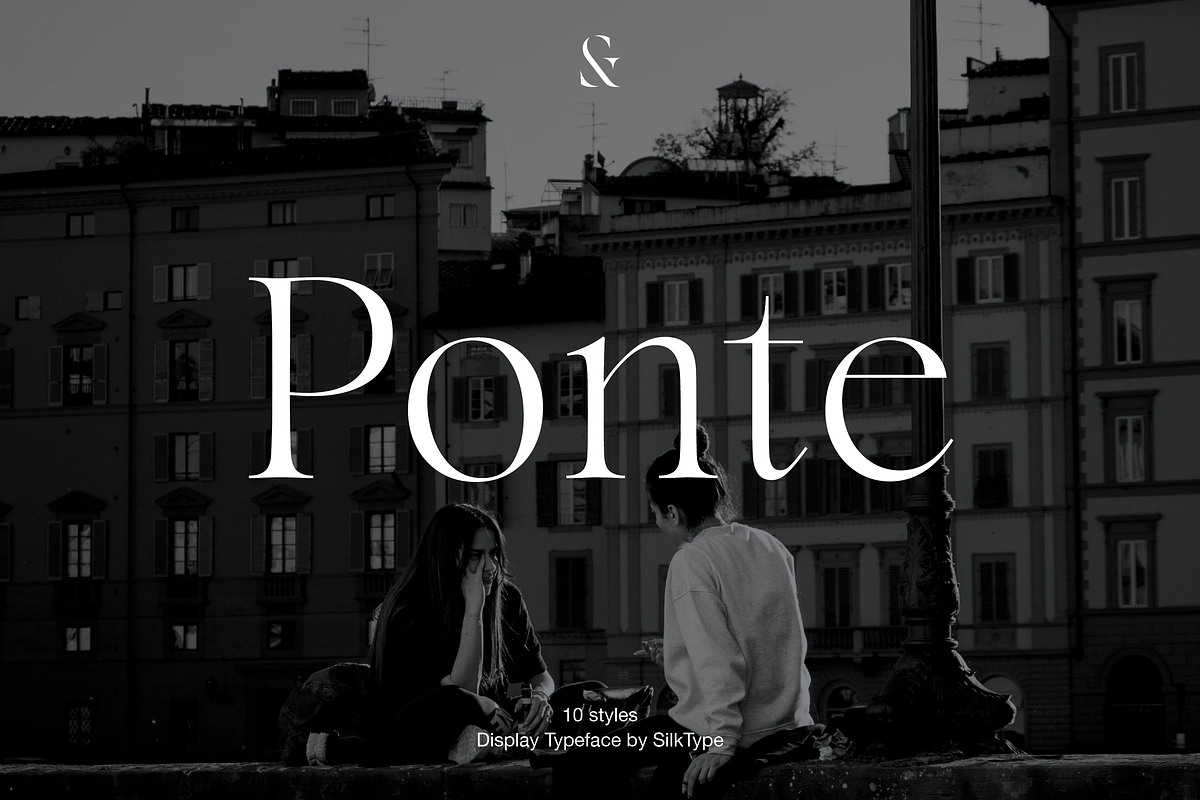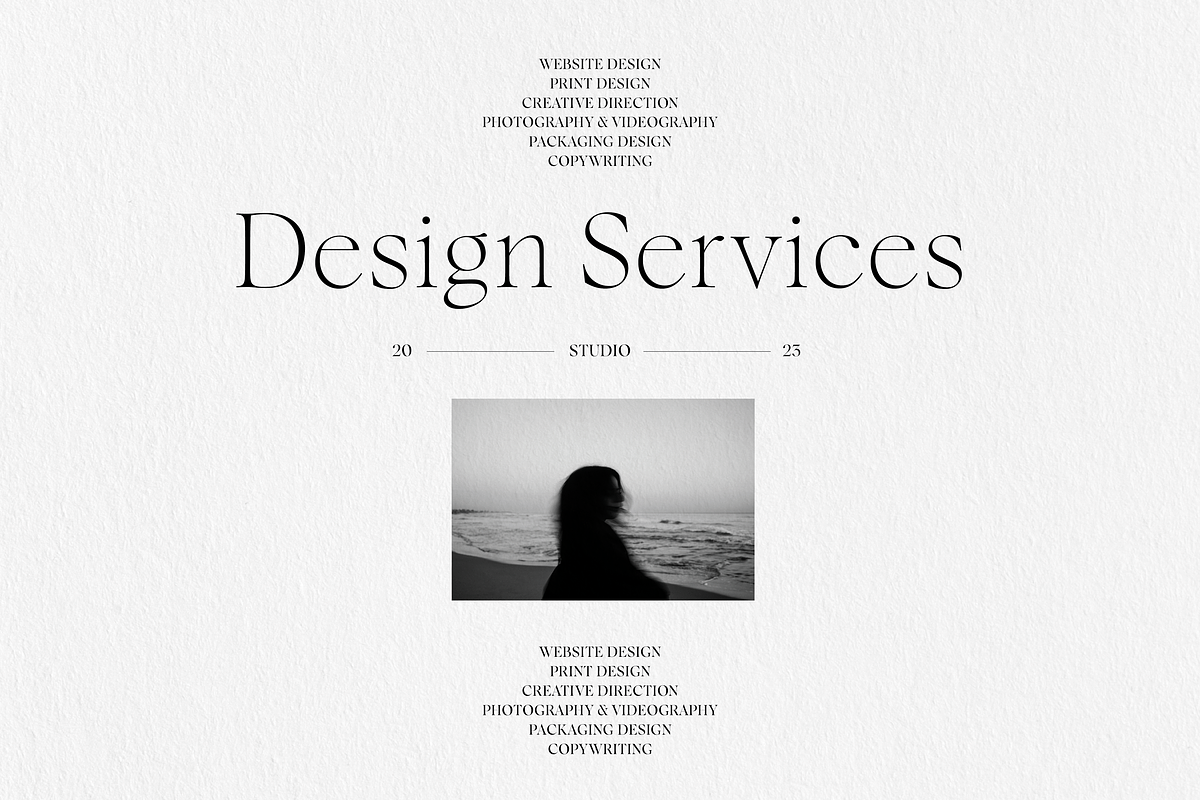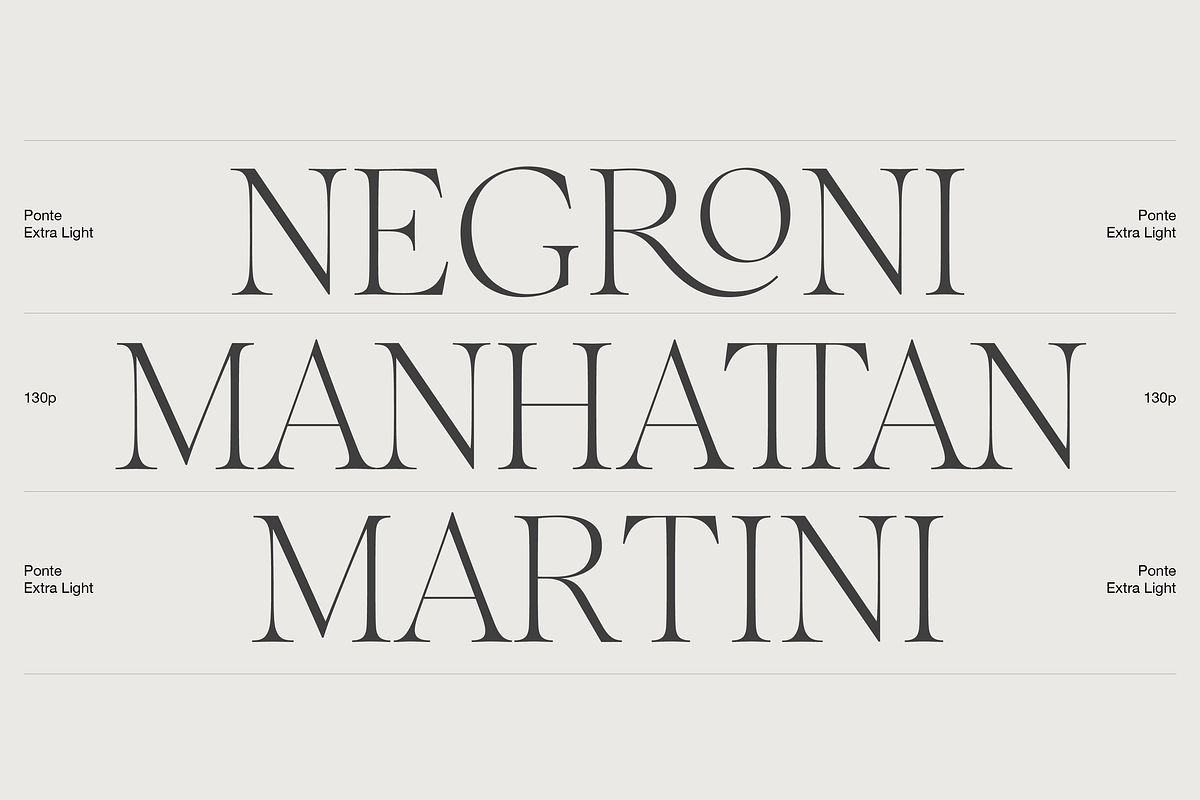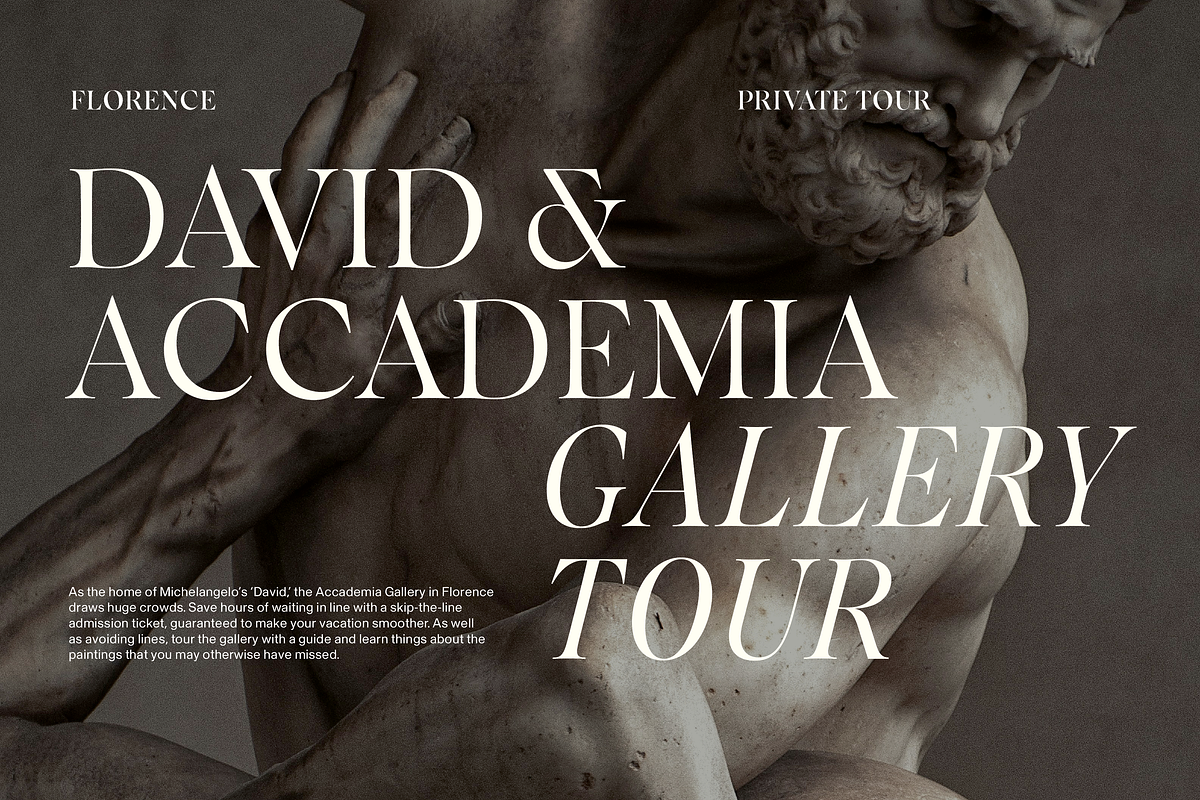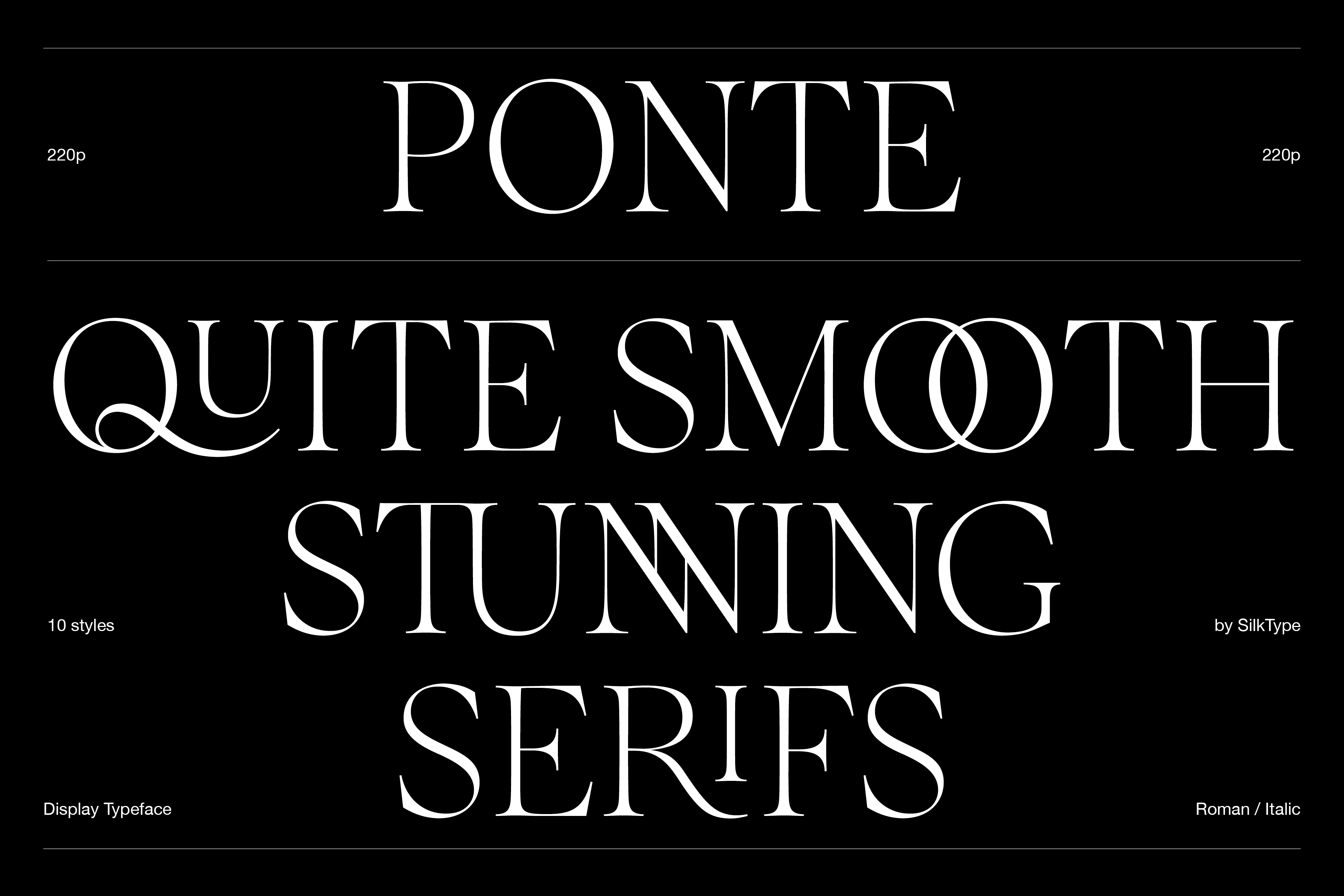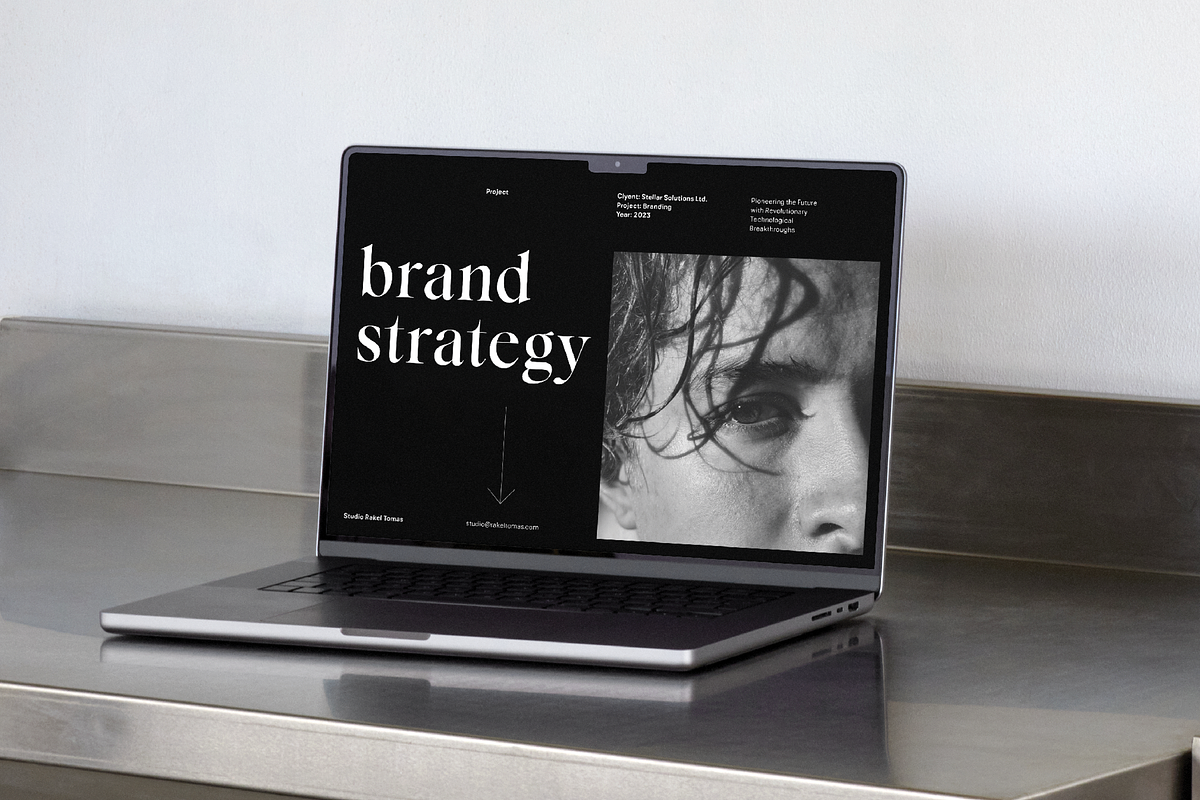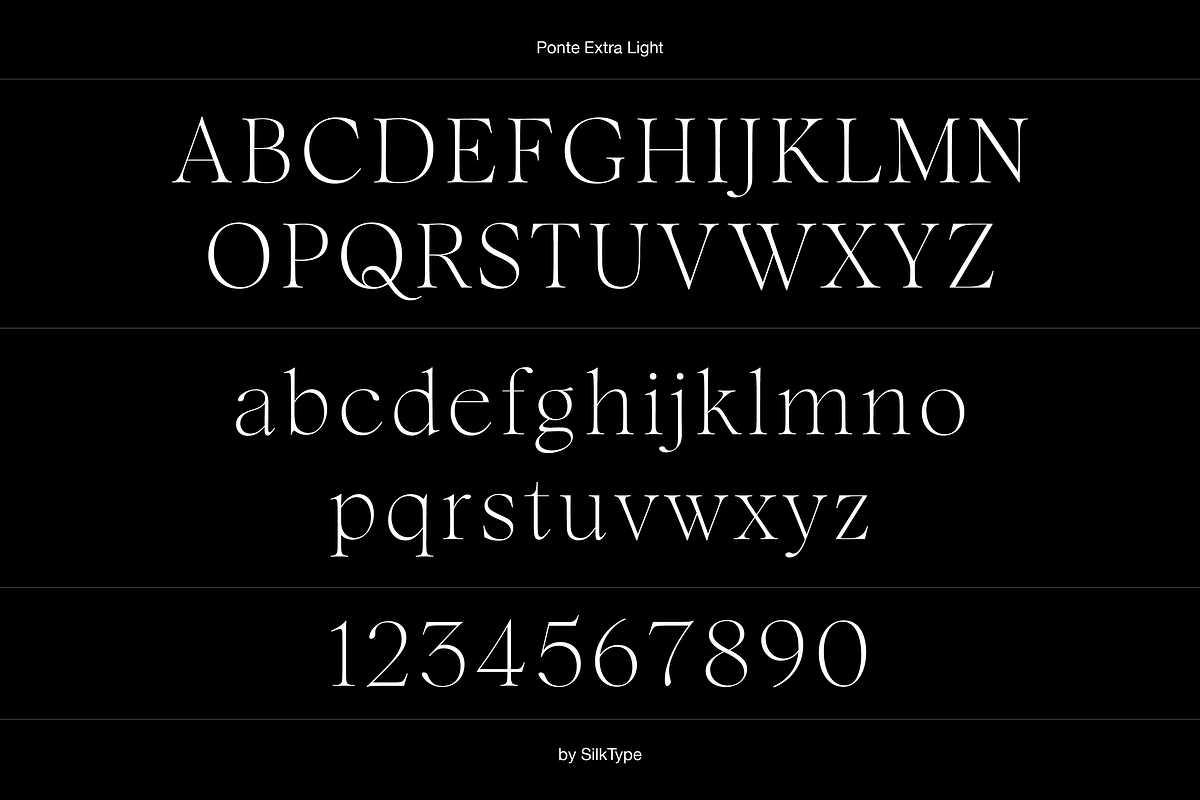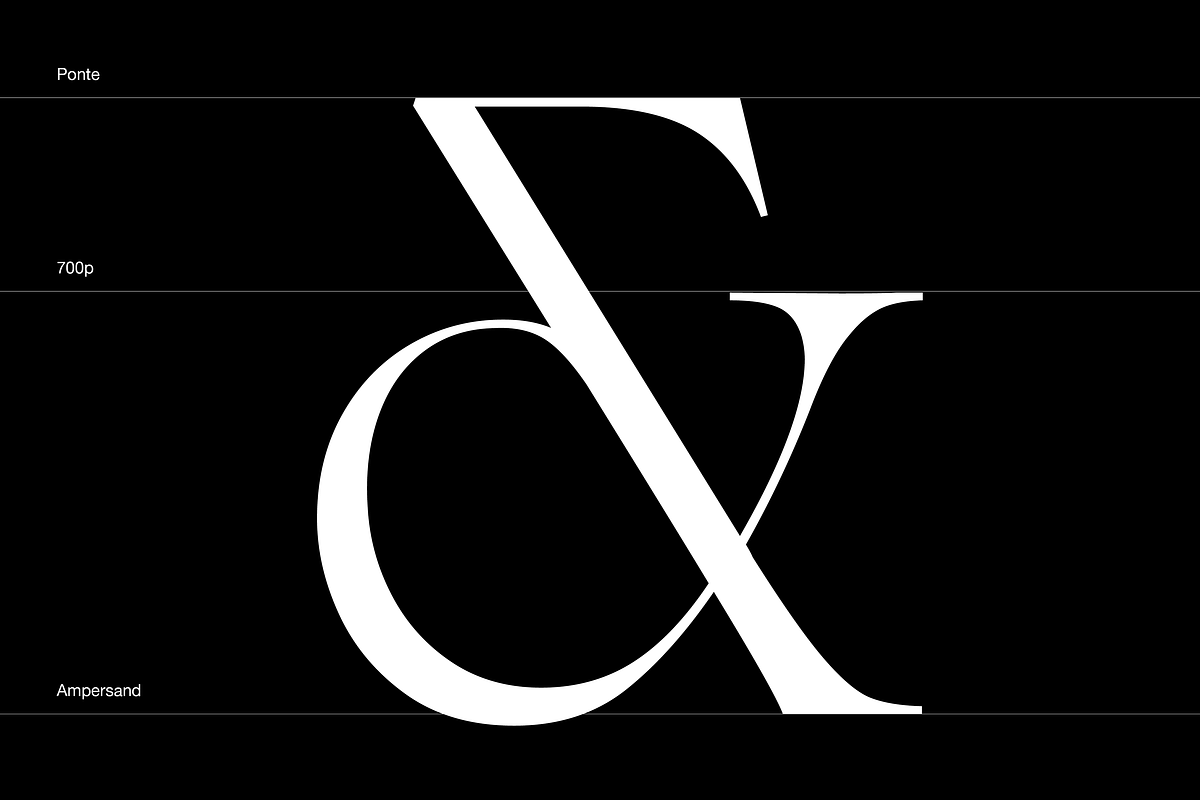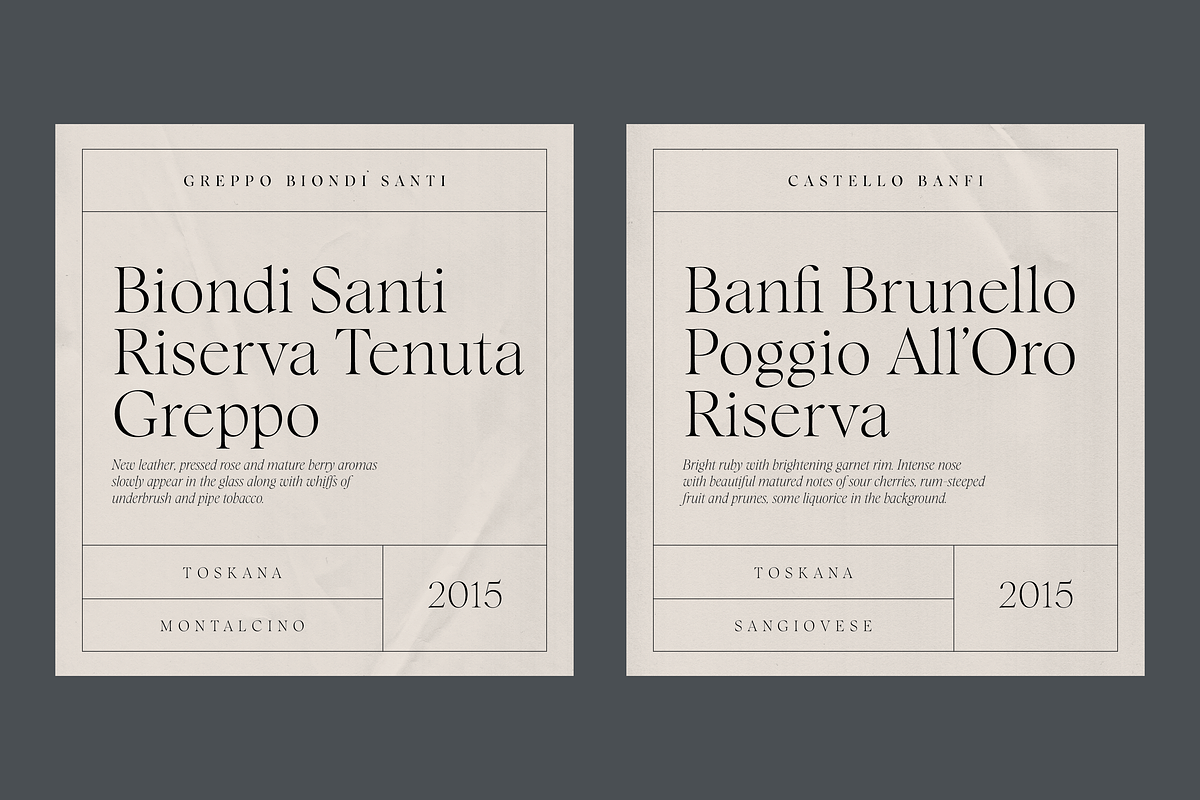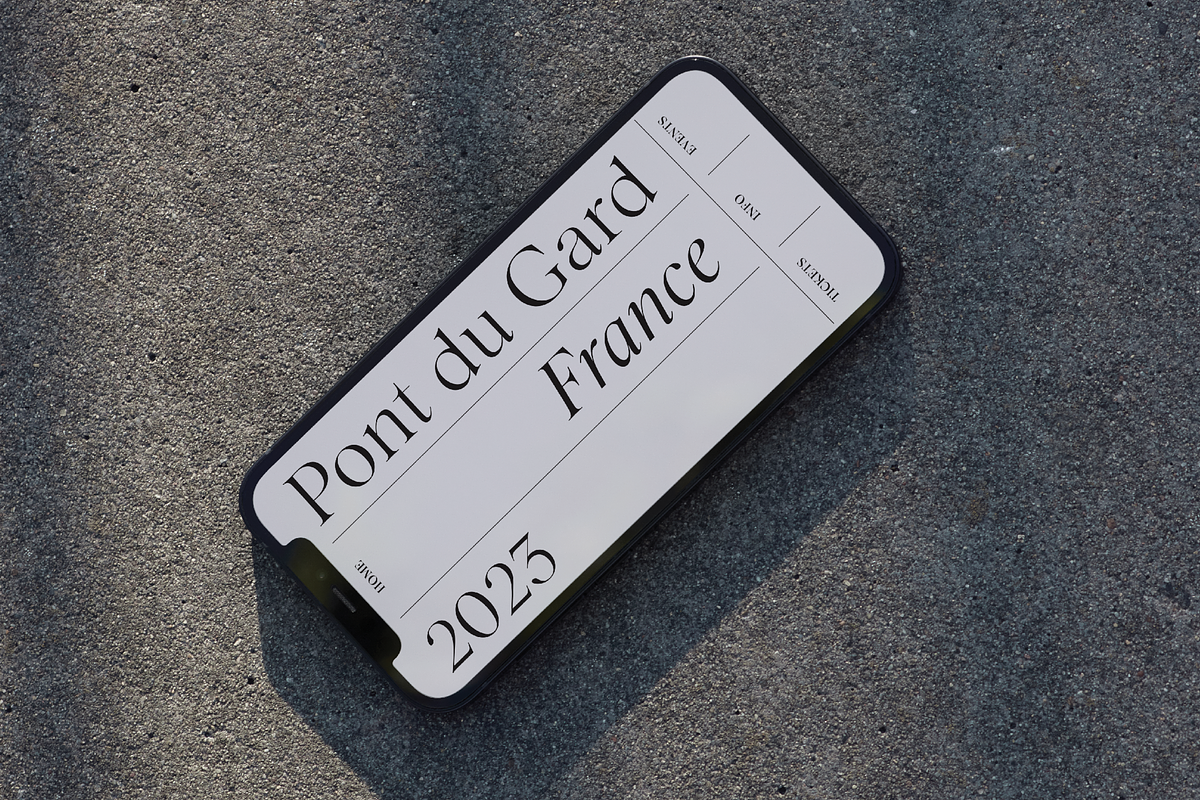
Ponte - 10 font family
Ponte is a high-contrast display typeface with smooth serifs, designed for impactful headlines. The ten-style typeface features over 80 decorative ligatures, with roman and italics available in five weights, ranging from extra light to bold. This offers a variety of options for sophisticated design applications.